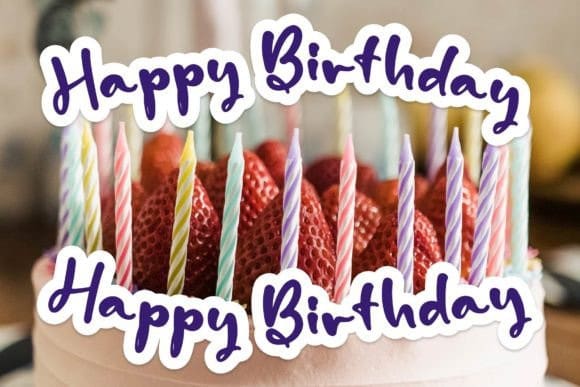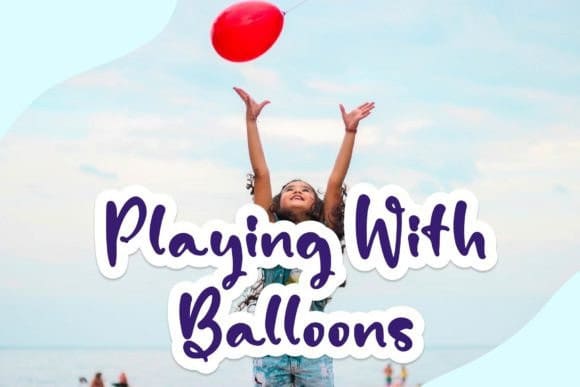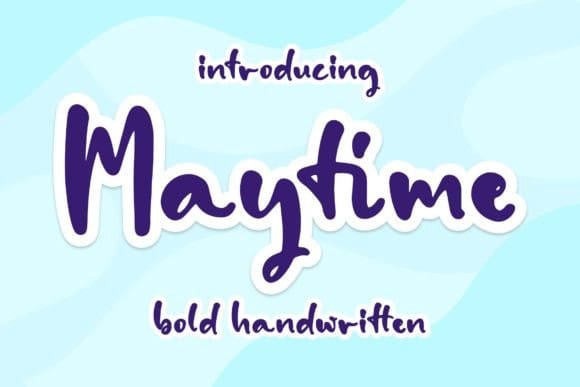
Maytime Script Font
Maytime Script Font is a modern, trendy and bold handwritten script font. Whether you’re using it for crafts, digital design, presentations, or making greeting cards, this font has the potential to become your favorite go-to font, no matter the occasion!